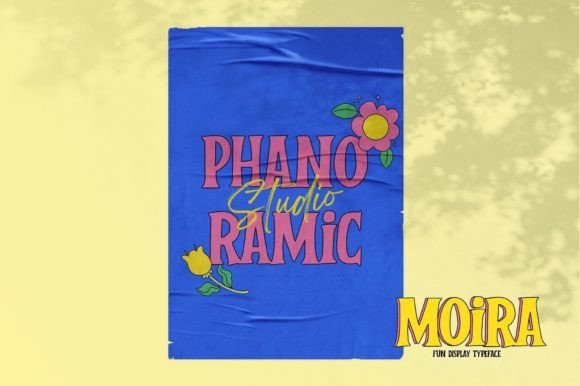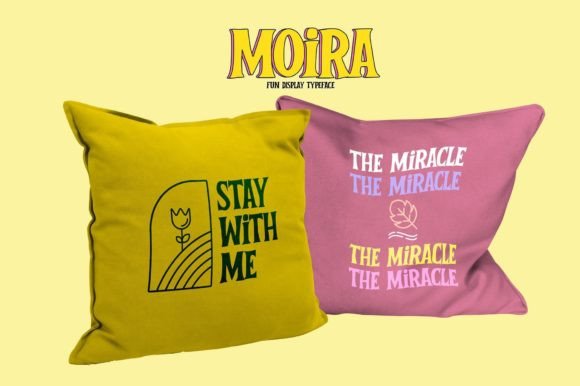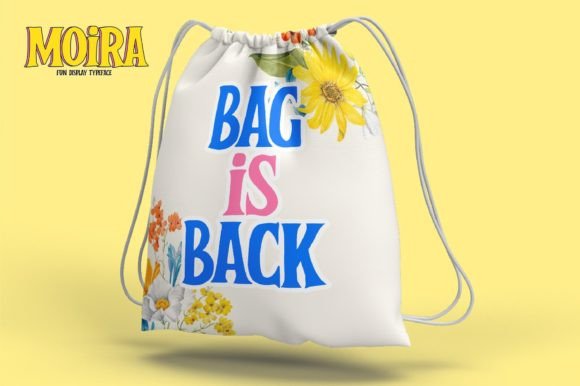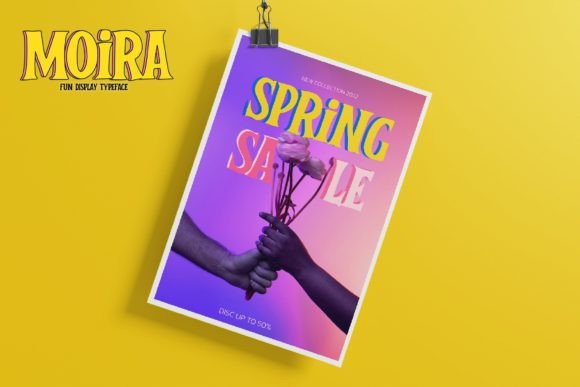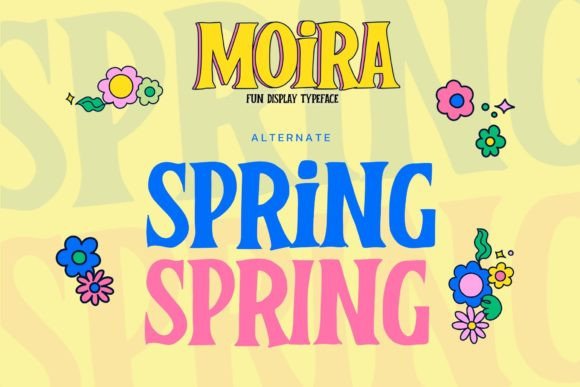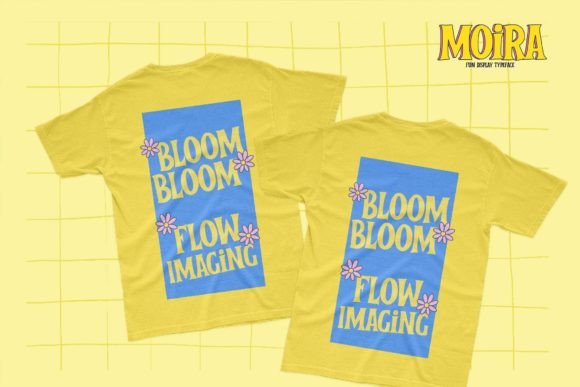
Introduction to Moira Font Font
Fonts play a crucial role in design, and the Moira Font font is a typeface that brings both character and versatility to any project. Whether you’re working on a branding project, a website, or a print design, the Moira Font font offers a unique style that can elevate your work.
MOIRA is a Fun Display Typeface.
This is a Textured Natural Style and classy style with a clear style and dramatic movement This font MOIRA is great for your next creative project such as logos, printed quotes, invitations, cards, product packaging, headers, Logotype, Letterhead, Poster, or Design this font is great for your creative projects such as watermark on photography and is perfect for logos & branding, etc.
Key Features of Moira Font Font
Why Choose Moira Font Font?
The Moira Font font is more than just a typeface – it’s a design tool that helps you communicate your message with style and clarity. Its unique character set and versatile design make it suitable for a wide range of applications, from elegant invitations to bold headlines.
With its carefully crafted letterforms and balanced proportions, the Moira Font font ensures readability and visual appeal across all mediums.
What makes Moira Font font special?
The Moira Font font stands out with its unique design, exceptional readability, and versatility across various design applications.